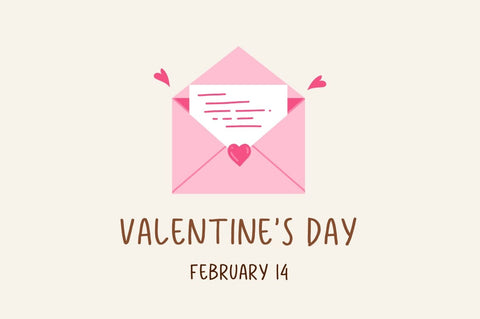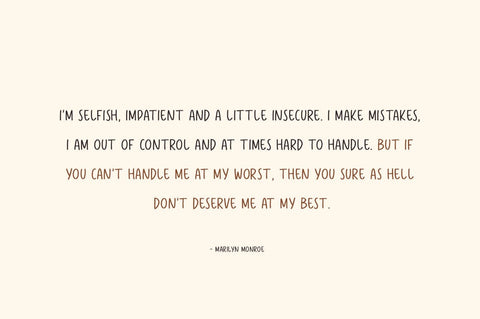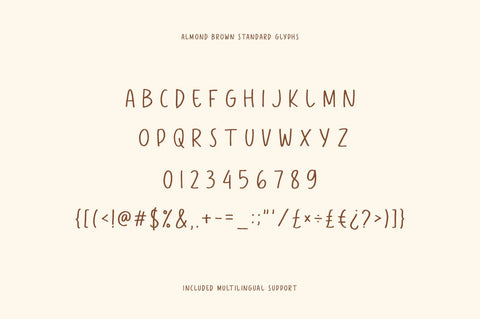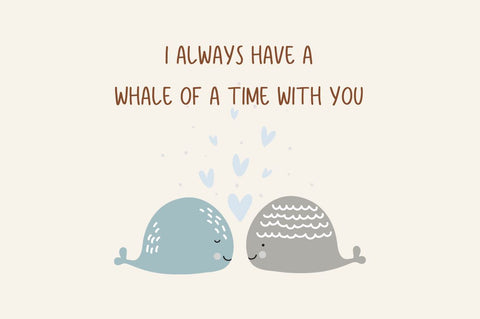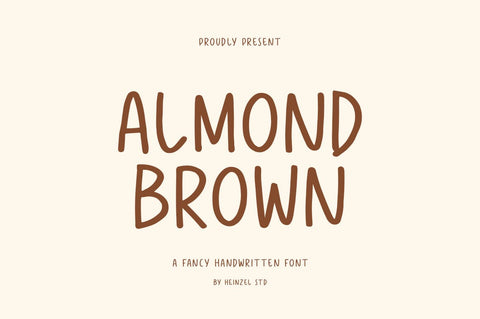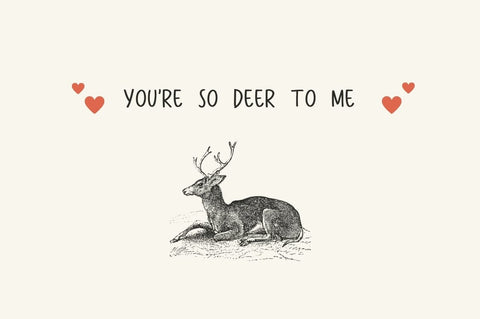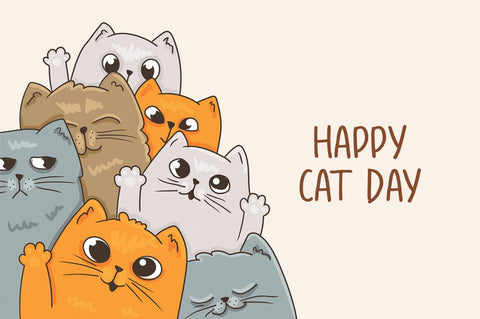
Almond Brown Handwritten Font
Almond Brown is a handwriting font, described by an elegant and modern touch, perfect for your favorite projects. It looks stunning on wedding invitations, thank you cards, quotes, greeting cards, logos, business cards, social media, magazines, branding, marketing materials, and every other design which needs a handwritten touch. Fall in love with its incredibly distinct and timeless style and use it to create spectacular designs!
Almond Brown Features:
- All Caps Glyphs
- Regular and Bold Version
- Numerical and Punctuation
- Alternates and Ligatures
- Multilingual Language